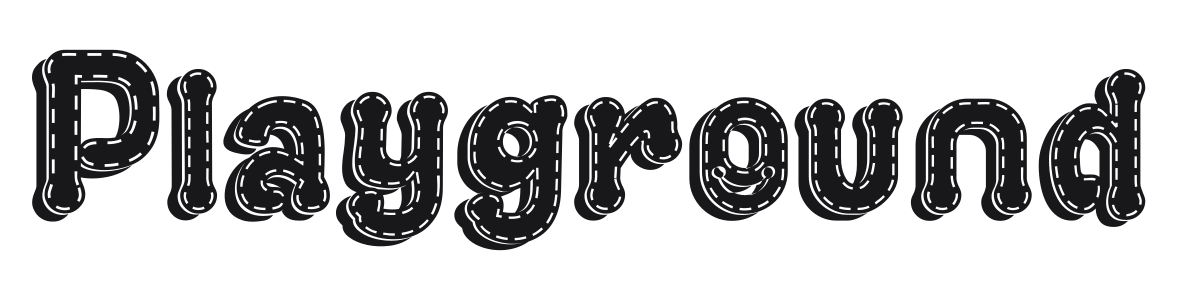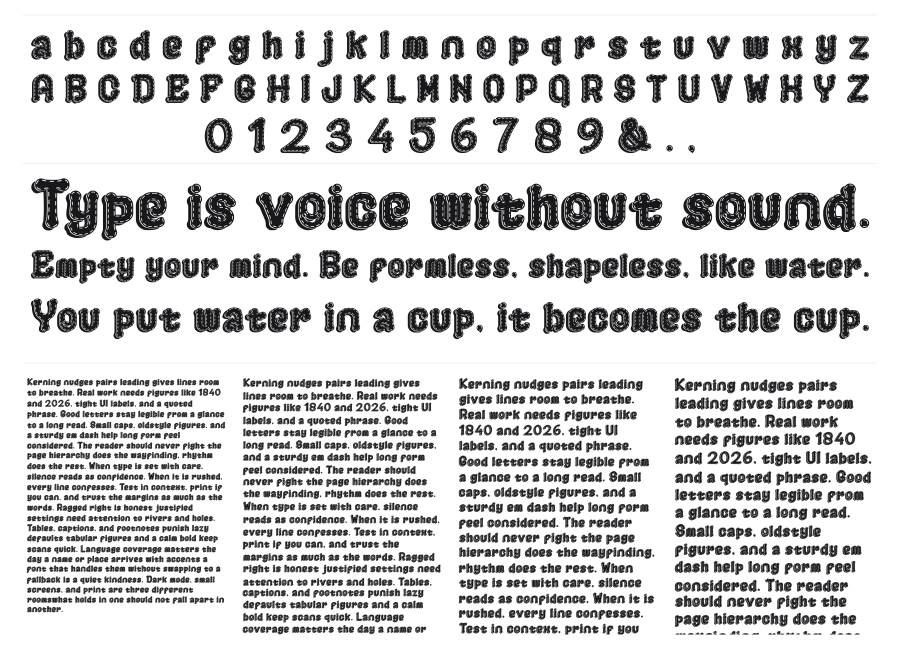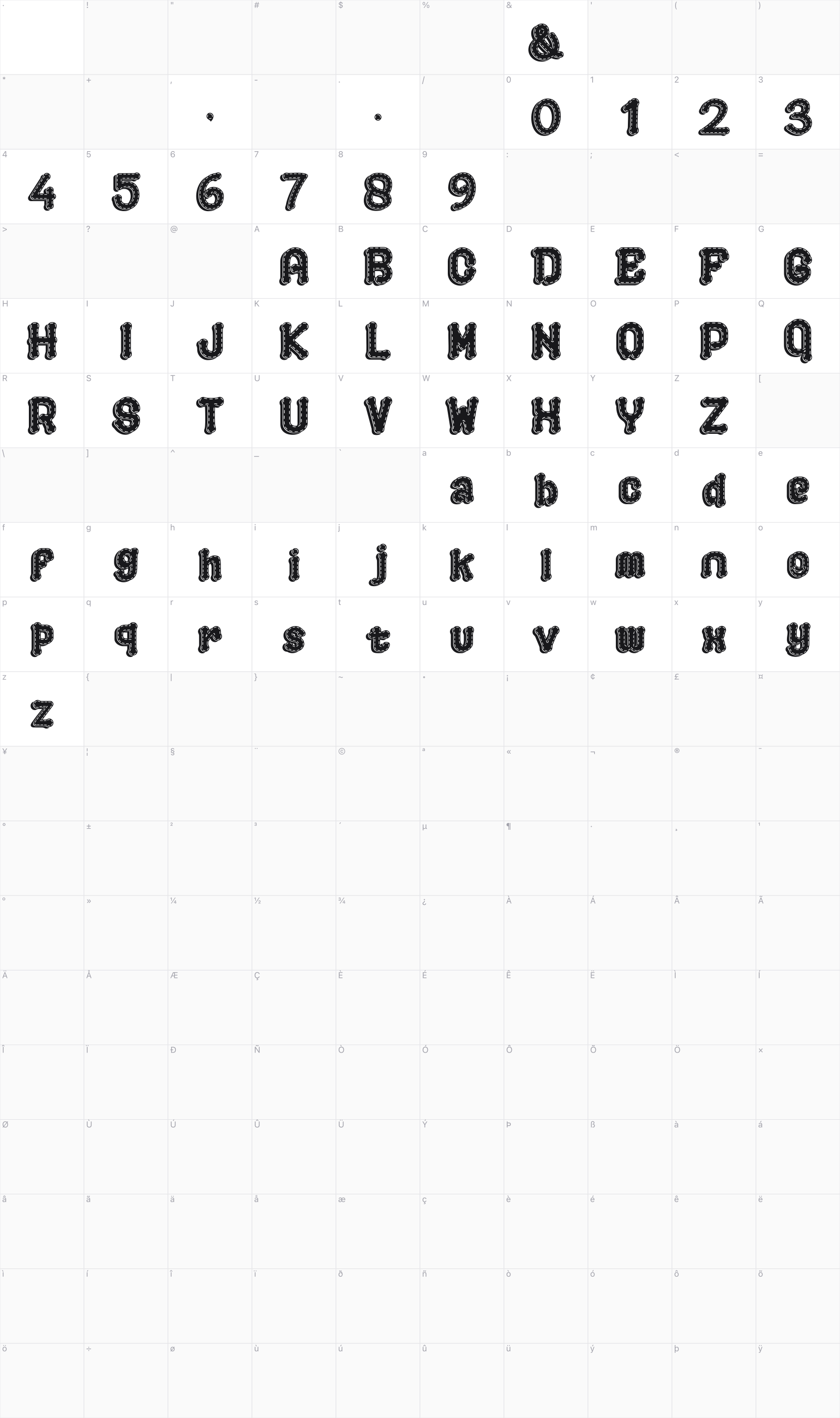
Playground
Playground is a chunky rounded display font with a bold 3D drop-shadow construction and a distinctive dashed stitching pattern running through each letter. The combination gives it the look of embroidered fabric patches or cartoon lettering with a handmade twist. It brings strong character to children's branding, food packaging, and any project that needs energy and warmth.